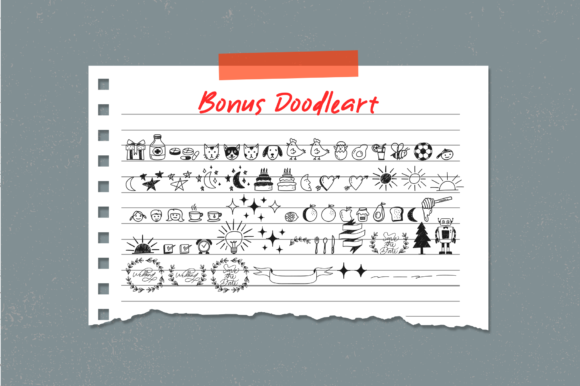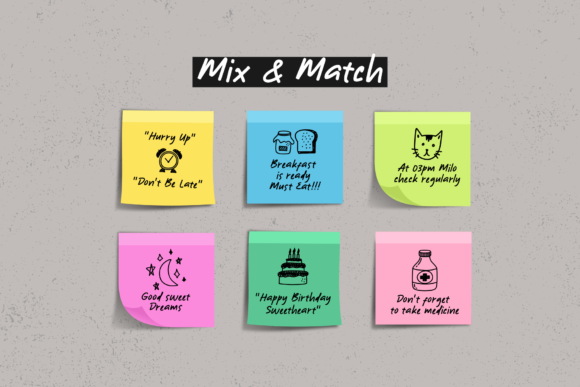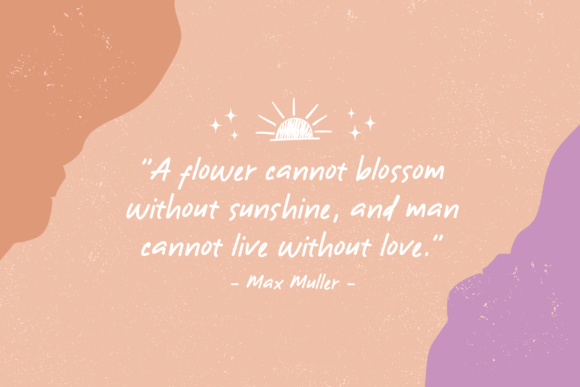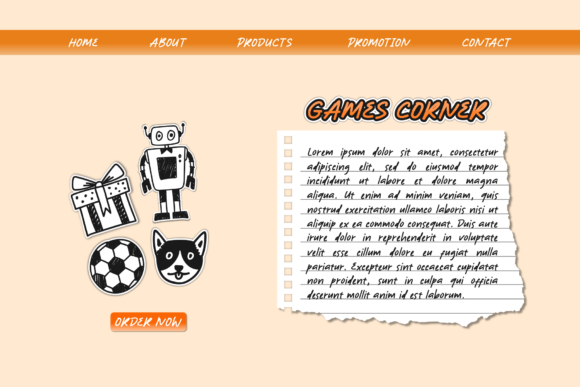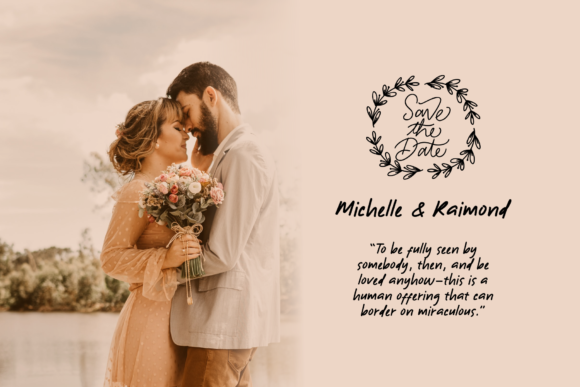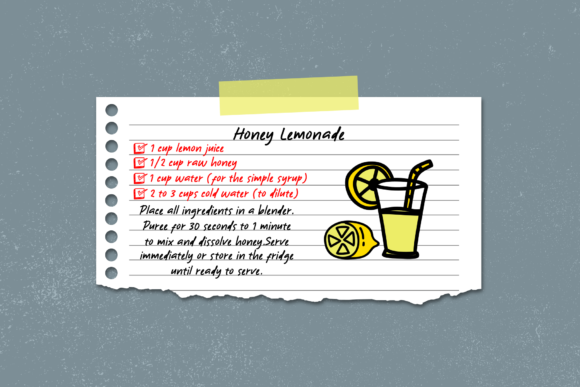
Introduction to Just Note Font Font
Fonts play a crucial role in design, and the Just Note Font font is a typeface that brings both character and versatility to any project. Whether you’re working on a branding project, a website, or a print design, the Just Note Font font offers a unique style that can elevate your work.
Just Note is an organic and beautiful decorative font, featuring lovely ornaments.
No matter the topic, this font will be an incredibly asset to your fontsβ library, as it has the potential to elevate any creation .
Key Features of Just Note Font Font
Why Choose Just Note Font Font?
The Just Note Font font is more than just a typeface β it’s a design tool that helps you communicate your message with style and clarity. Its unique character set and versatile design make it suitable for a wide range of applications, from elegant invitations to bold headlines.
With its carefully crafted letterforms and balanced proportions, the Just Note Font font ensures readability and visual appeal across all mediums.
What makes Just Note Font font special?
The Just Note Font font stands out with its unique design, exceptional readability, and versatility across various design applications.